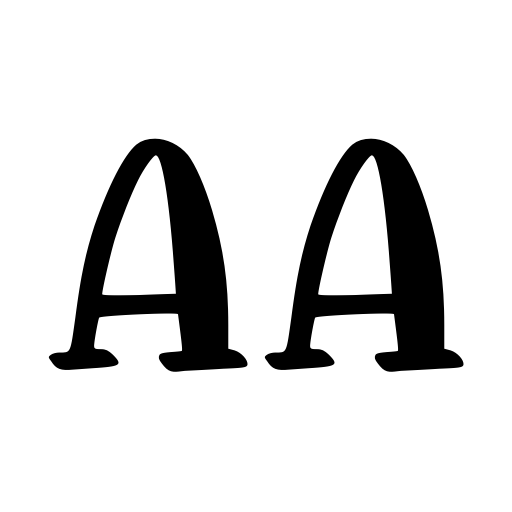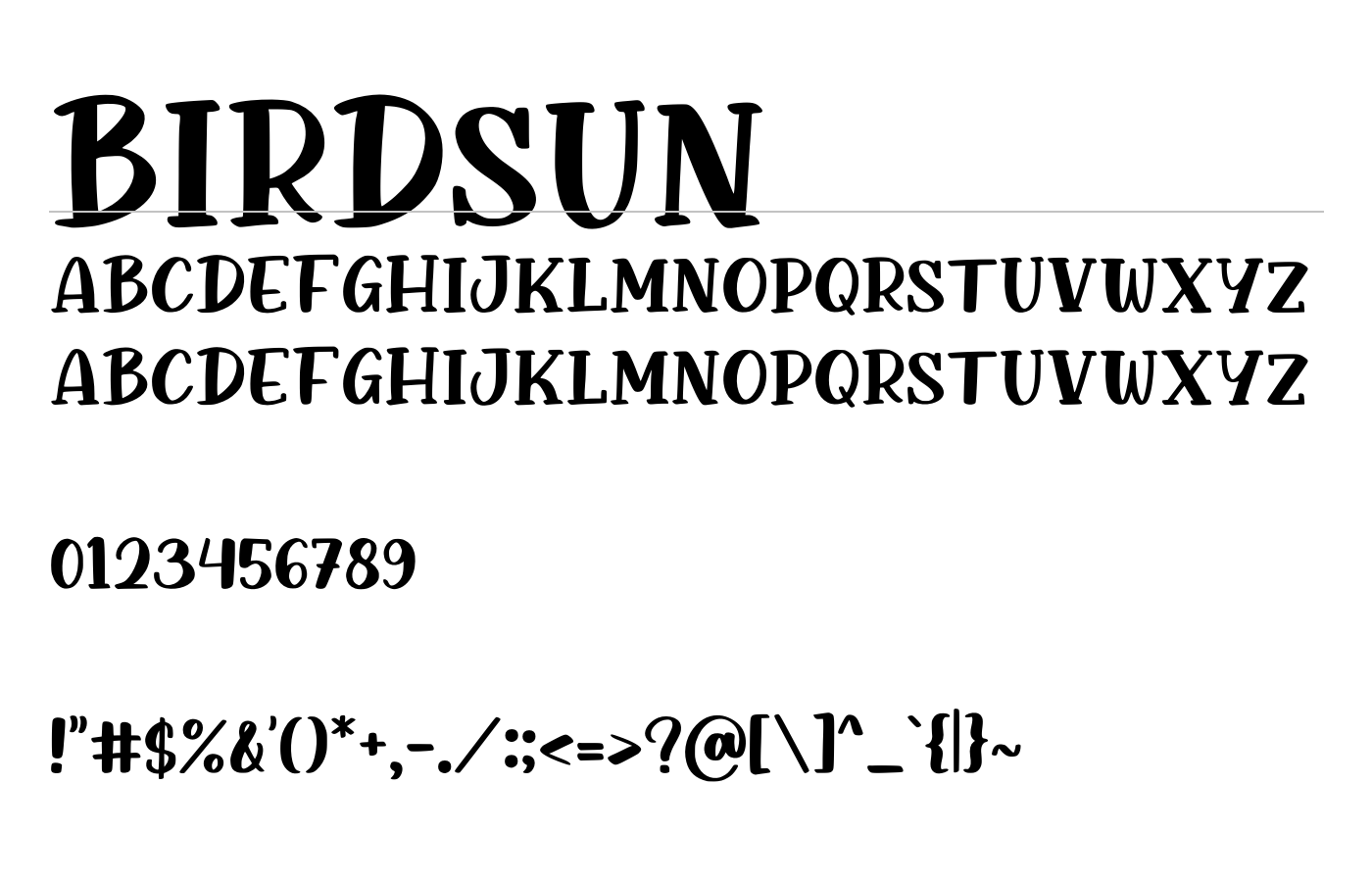
Birdsun is a playful serif font with a friendly, hand-crafted feel, characterized by its slightly uneven strokes and moderate contrast between thick and thin lines. Its tall x-height and quirky letter shapes make it approachable and ideal for creative, informal uses like children's books, casual branding, and lively headlines. This font works well where a unique, warm personality is desired without sacrificing readability.
Birdsun Font
About Birdsun Font